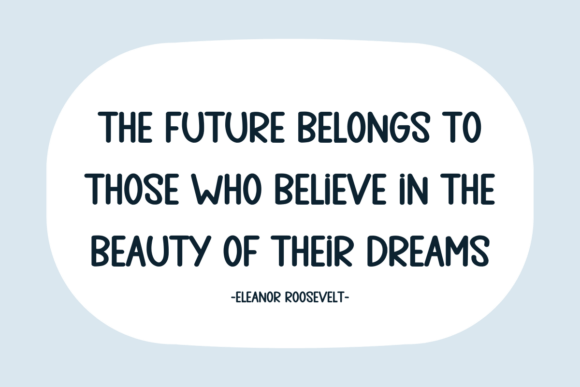
Introducing Card Candle Font: The Charming Hand-Drawn Aesthetic for Your Creative Projects
In the world of typography, few fonts have managed to capture the essence of authenticity and charm as effortlessly as the Card Candle font. This beautifully hand-drawn font has taken the design community by storm, offering a unique and captivating aesthetic that is perfect for a wide range of creative projects. From journals and planners to KDP templates and print-on-demand documents, Card Candle’s versatility knows no bounds.
The Unique Appeal of Card Candle Font
Card Candle’s appeal lies in its charmingly authentic hand-drawn aesthetic. Each letter, carefully crafted with precision and attention to detail, exudes a sense of warmth and personality that is hard to find in digital fonts. This naturally original font is sure to captivate your audience, making it the ideal choice for projects that require a personal touch.
One of the standout features of Card Candle is its ability to add a touch of whimsy and elegance to any design. Whether you’re creating a journal, diary, or notebook, this font is sure to elevate your project to new heights. Its flowing lines and delicate curves make it perfect for designs that require a sense of sophistication and refinement.
Perfect for Journals, Diaries, and Notebooks
Card Candle font is an excellent choice for journals, diaries, and notebooks. Its elegant and refined aesthetic makes it perfect for projects that require a sense of sophistication and personality. Whether you’re creating a daily planner, a gratitude journal, or a travel diary, Card Candle is sure to add a touch of charm and whimsy to your design.
One of the benefits of using Card Candle for journals and diaries is its readability. The font’s clear and flowing lines make it easy to read, even for extended periods. This is particularly important for journals and diaries, where users will be reading and writing for extended periods.
Adding a Personal Touch to Daily Planners and Organizers
Card Candle font is also an excellent choice for daily planners, trackers, schedules, and organizers. Its charming aesthetic adds a personal touch to these functional designs, making them more engaging and enjoyable to use. Whether you’re creating a daily planner, a to-do list, or a habit tracker, Card Candle is sure to bring a sense of personality and whimsy to your design.
One of the benefits of using Card Candle for daily planners and organizers is its versatility. The font can be used for headings, subheadings, and body text, making it easy to create a cohesive and visually appealing design.
KDP Templates and Interiors
Card Candle font is also an excellent choice for KDP (Kindle Direct Publishing) templates and interiors. Its elegant and refined aesthetic makes it perfect for creating professional-looking book interiors and covers. Whether you’re self-publishing a novel, a cookbook, or a journal, Card Candle is sure to add a touch of sophistication and elegance to your design.
One of the benefits of using Card Candle for KDP templates and interiors is its compatibility with a wide range of formats. The font can be used for eBooks, paperbacks, and hardcover books, making it easy to create a consistent brand identity across different formats.
Stationery and To-Do Lists
Card Candle font is also perfect for stationery and to-do lists. Its charming aesthetic adds a touch of personality and whimsy to these functional designs, making them more engaging and enjoyable to use. Whether you’re creating a greeting card, a letterhead, or a to-do list, Card Candle is sure to bring a sense of elegance and refinement to your design.
One of the benefits of using Card Candle for stationery and to-do lists is its flexibility. The font can be used for formal and informal designs, making it easy to create a wide range of stationery and print materials.
Print-on-Demand Documents and Presentations
Card Candle font is also an excellent choice for print-on-demand documents and presentations. Its elegant and refined aesthetic makes it perfect for creating professional-looking documents and presentations that are sure to impress your audience.
One of the benefits of using Card Candle for print-on-demand documents and presentations is its scalability. The font can be used for large and small print runs, making it easy to create a consistent brand identity across different print materials.
Worksheets and Educational Materials
Card Candle font is also perfect for worksheets and educational materials. Its clear and flowing lines make it easy to read, even for extended periods. Whether you’re creating a worksheet, a quiz, or a educational resource, Card Candle is sure to add a touch of elegance and refinement to your design.
One of the benefits of using Card Candle for worksheets and educational materials is its engagement factor. The font’s charming aesthetic is sure to engage students and make learning more enjoyable and fun.
With its clear and flowing lines, Card Candle is easy to read and perfect for extended periods of reading and writing. Its scalability and flexibility make it easy to use for a wide range of print materials, from large print runs to small print-on-demand projects.
If you’re looking for a font that will add a touch of elegance and refinement to your design, look no further than Card Candle. Its charming aesthetic and versatility make it the perfect choice for any creative project.